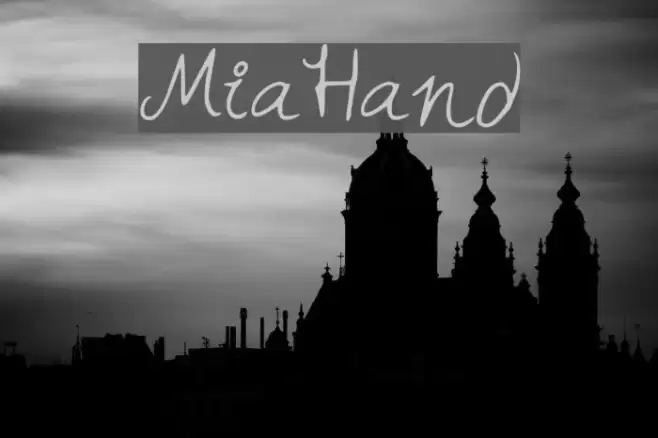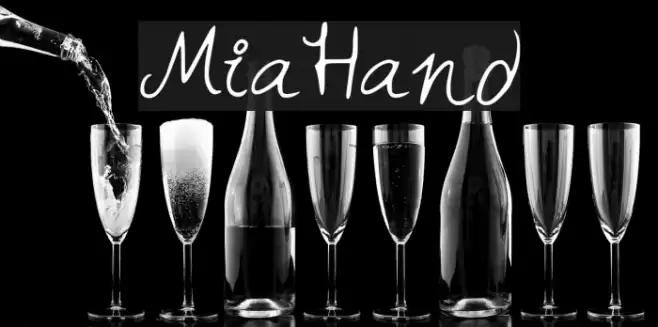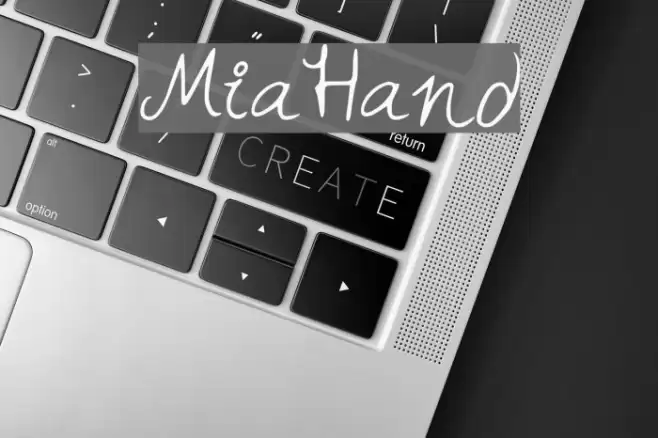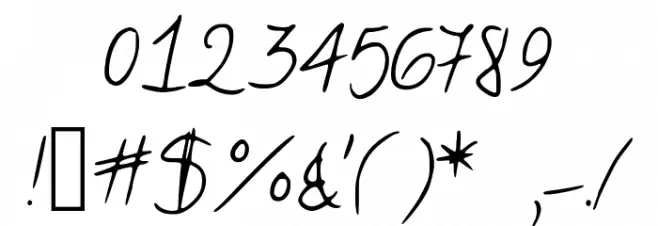
MiaHand Font
MiaHand Description
This font exhibits a lively and dynamic handwritten style, characterized by its fluid and cursive letterforms. The uppercase letters display a playful yet elegant flair, with varying stroke thickness that adds a sense of movement and personality. The lowercase letters maintain a consistent flow, enhancing readability while preserving the font's artistic nature. Numbers and special characters are crafted with the same attention to detail, ensuring a cohesive look throughout. The overall appearance is both whimsical and sophisticated, making it suitable for creative and expressive design projects.
A lively, cursive handwritten font with dynamic strokes and playful elegance from Handwritten fonts.
- Proposed Projects: Ideal for greeting cards, invitations, personal branding, and artistic projects that require a touch of elegance and creativity.
- Use Case: Logos, Invitations, Artistic projects